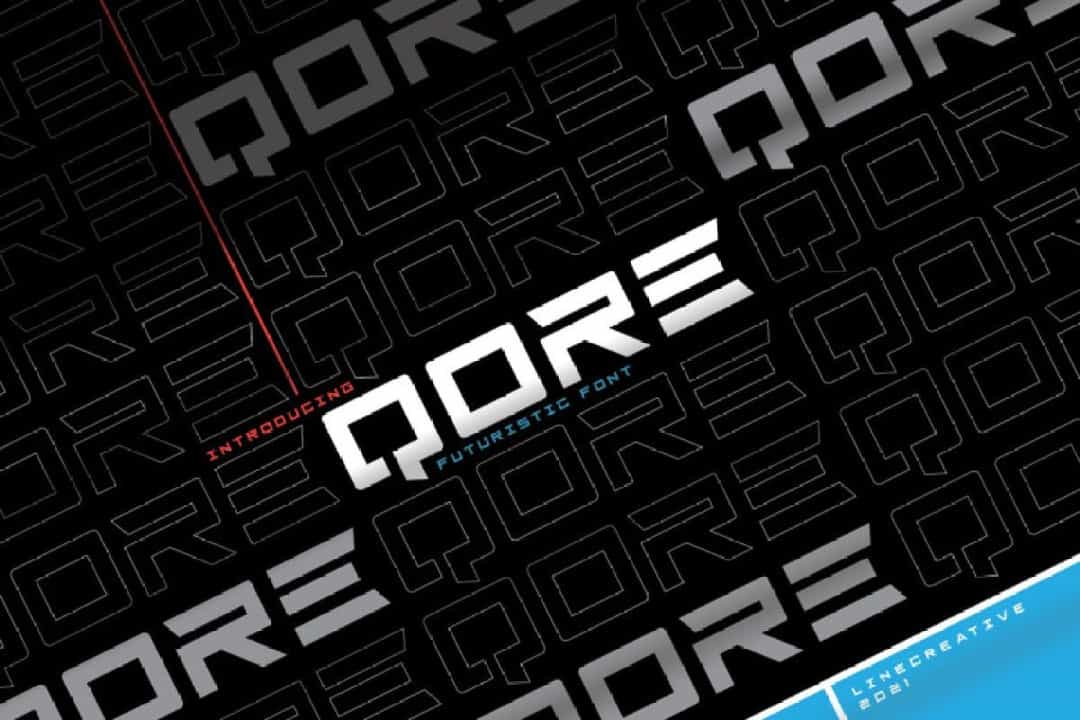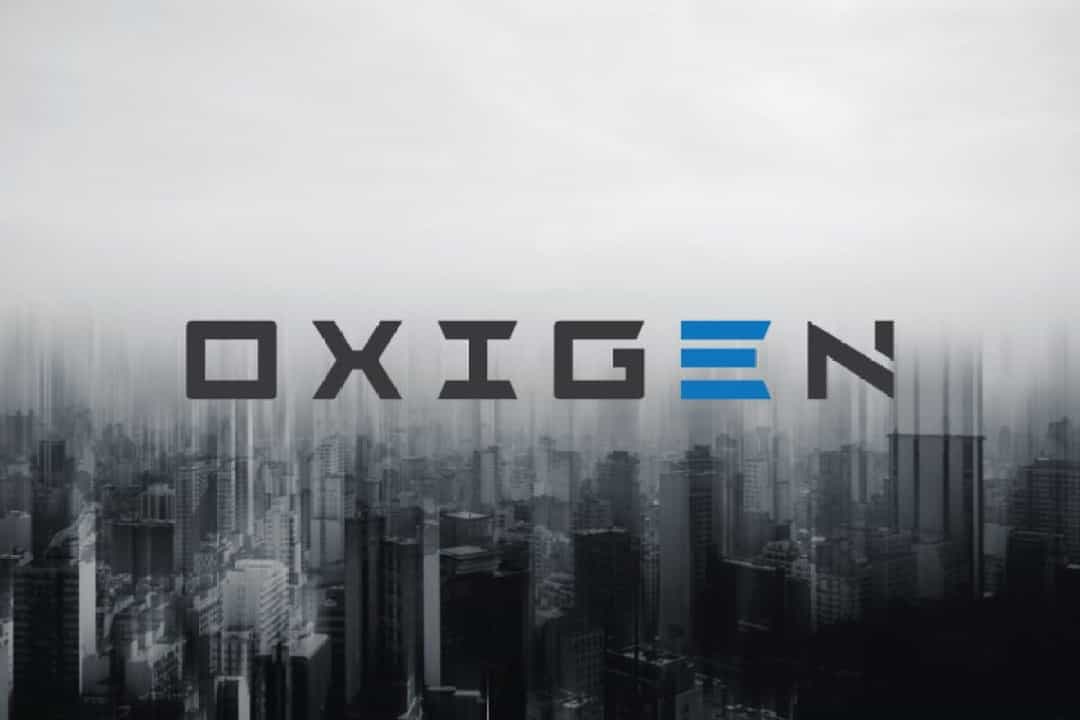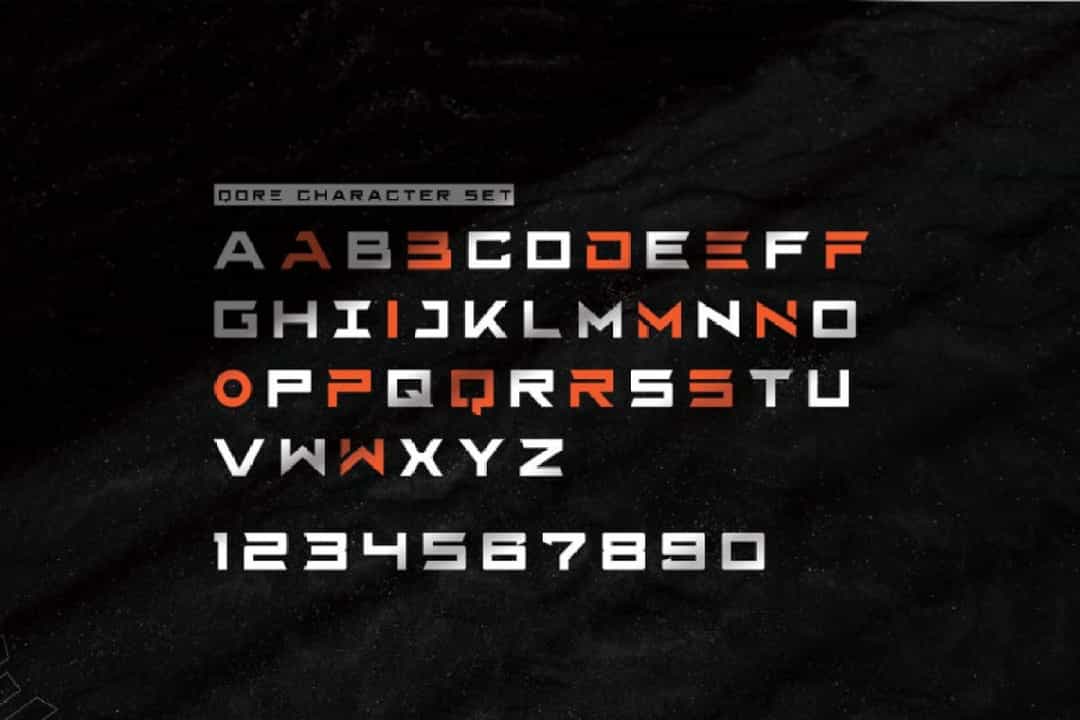
Qore is a new sans serif font with minimal design and futuristic look and feel ideal for logos, branding design, shirt printing and other similar uses.